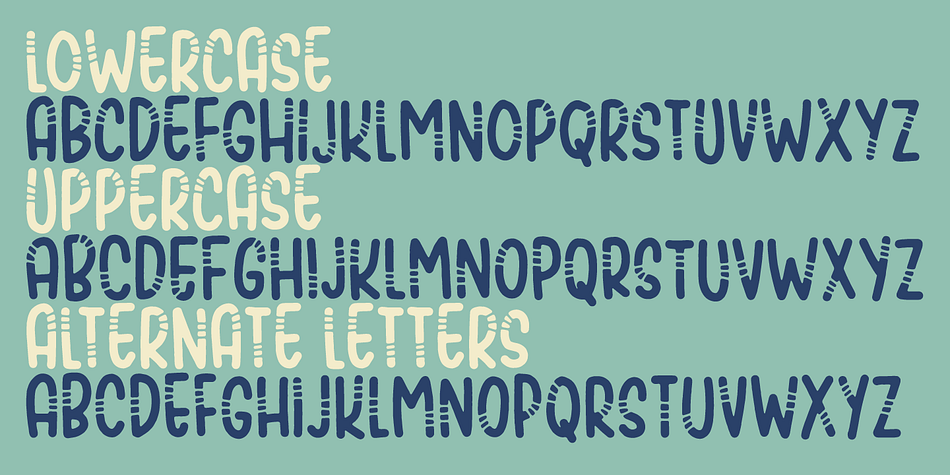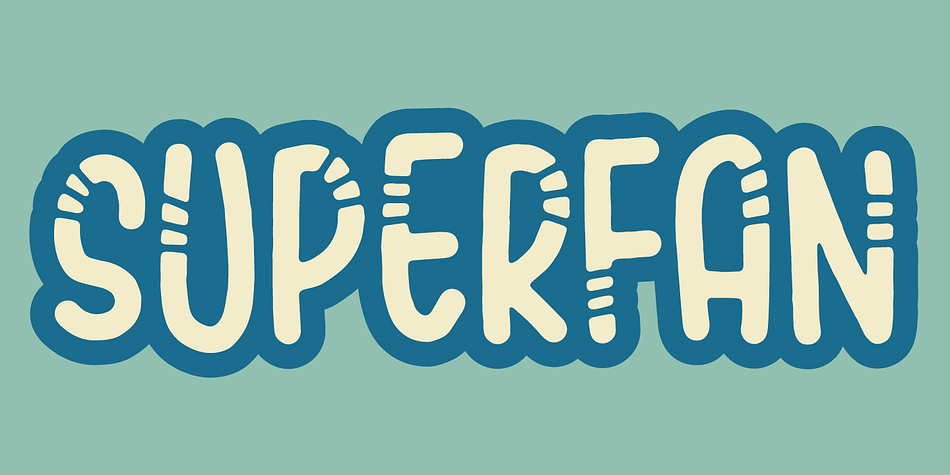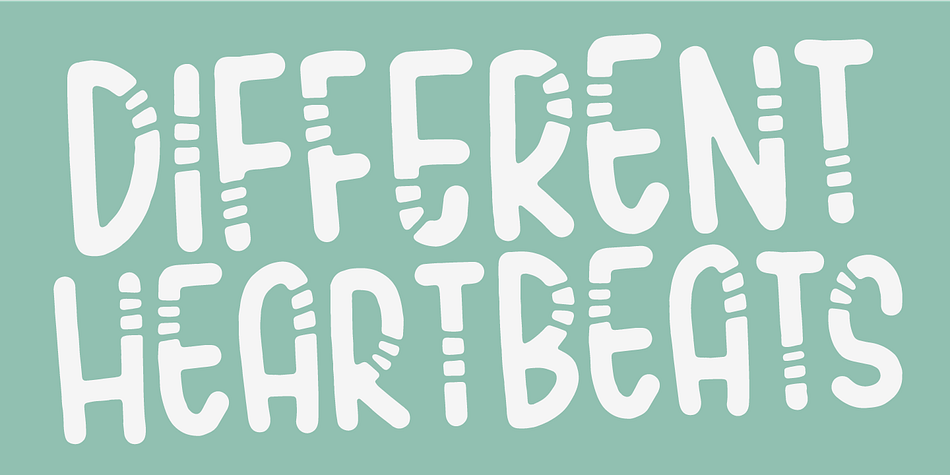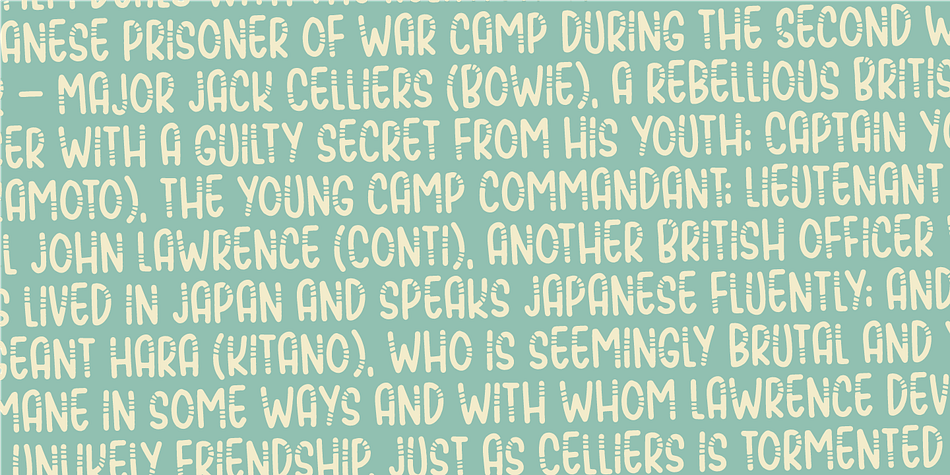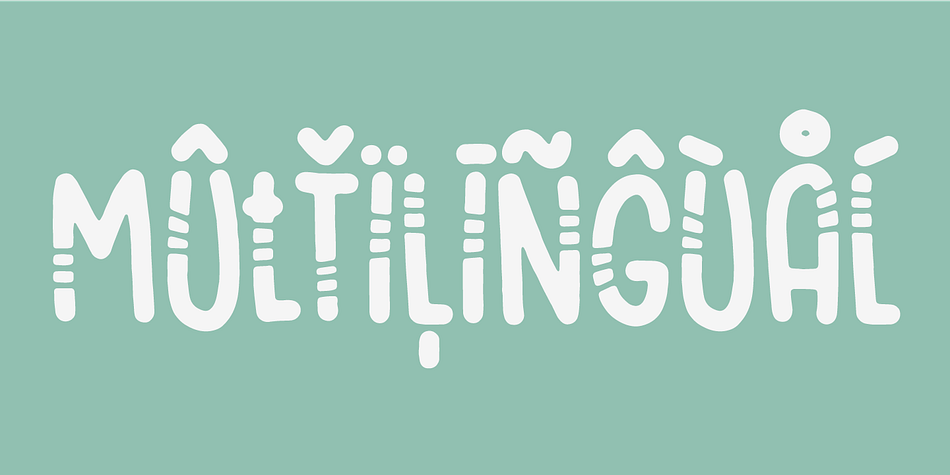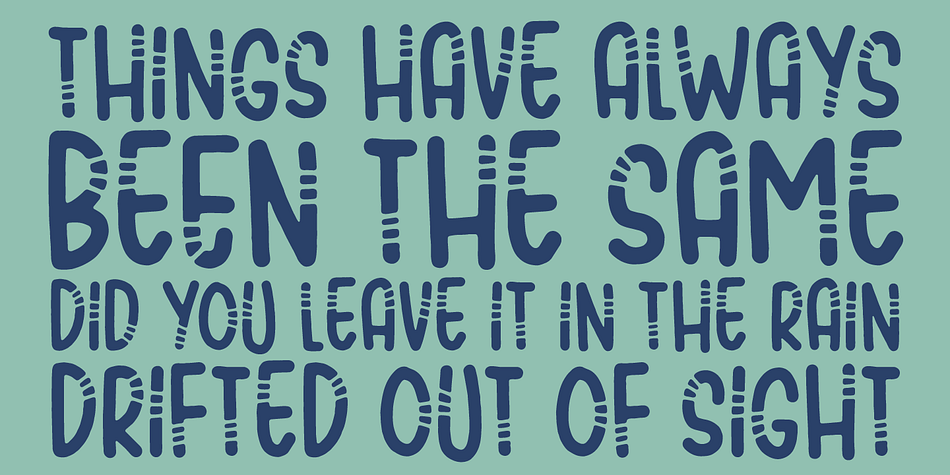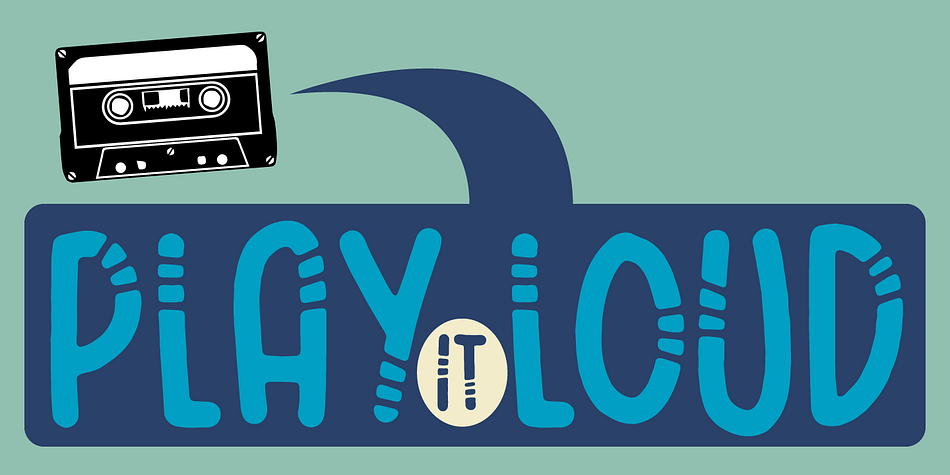
Designed by Jakob Fischer, Superfan is a comic and hand display font family. This typeface has two styles and was published by Bogstav.
Superfan has mouth-watering soft curves that sets your mind on candy, or something soft and round-edged. Superfan like to be seen in large scales, for the slight roughness to appear, but has it’s moments in small scales as well.
Superfan has a different upper- and lowercase set of letters, and an extra set of alternate letters to choose from if that is needed!